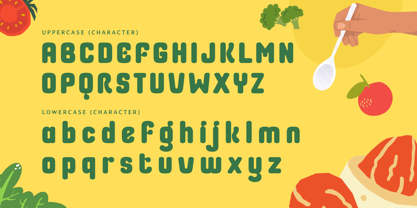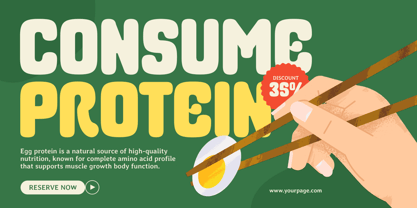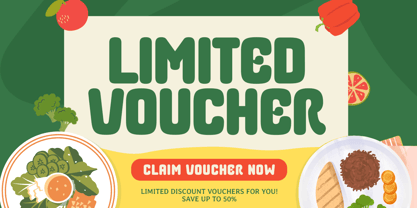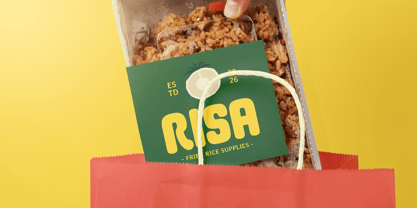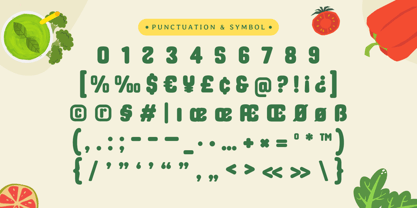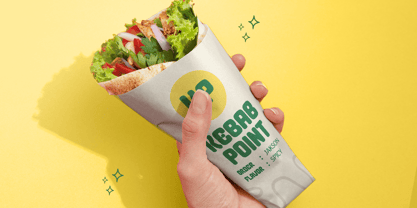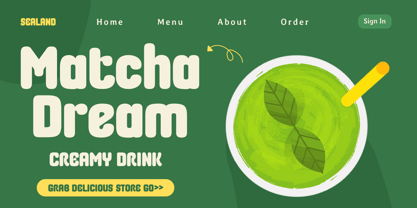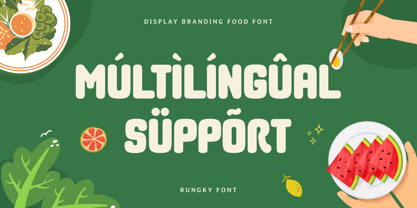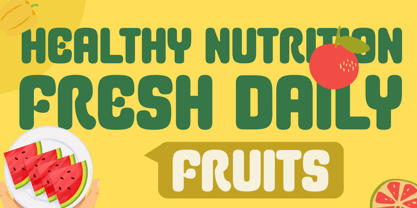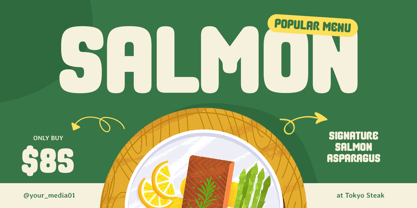
RUNGKY is a display branding food font crafted to bring a delicious, playful energy to your typography. With bold shapes and a friendly, appetizing personality, this typeface helps your designs feel inviting, fun, and instantly memorable—perfect for food-focused brands that want to stand out.
Designed for high-impact use, RUNGKY works beautifully across restaurant and café branding, menu headlines, food packaging, product labels, signage, posters, social media promos, and digital banners. Its display-driven structure keeps words clear and punchy, making it ideal for catchy brand names, tasty product titles, and bold promotional messaging.
Whether you’re building a snack brand identity, designing a coffee shop menu, launching a food product line, or creating cheerful marketing visuals, RUNGKY delivers a flavorful display style that makes every headline look fresh, fun, and irresistibly bold.
Inspiration Behind RUNGKY
RUNGKY is inspired by modern food branding and playful packaging typography—where bold forms and friendly rhythm make products feel more approachable and crave-worthy. The design focuses on energetic shapes and cheerful visual balance to support menus, packaging, and food campaigns with an appetizing, brand-ready look.
RUNGKY Font Features:
Bold display letterforms with playful food-brand personality
Perfect for menus, packaging, labels, and restaurant branding
Strong readability for headlines, product names, and promos
Uppercase, lowercase, numerals, and punctuation included
OpenType features for polished professional typesetting
Perfect For
Food logos, restaurant branding, and café identity systems
Menu headers, specials boards, and promotional headlines
Packaging, labels, stickers, and product branding for snacks & drinks
Posters, signage, banners, and in-store marketing visuals
Social media promos, ads, and cheerful food campaign graphics
Multilingual Support
Make your food branding look instantly delicious with RUNGKY—crafted for bold, playful, appetizing display design. 🍔✨